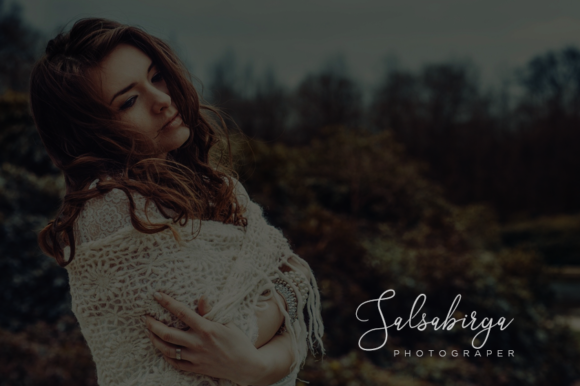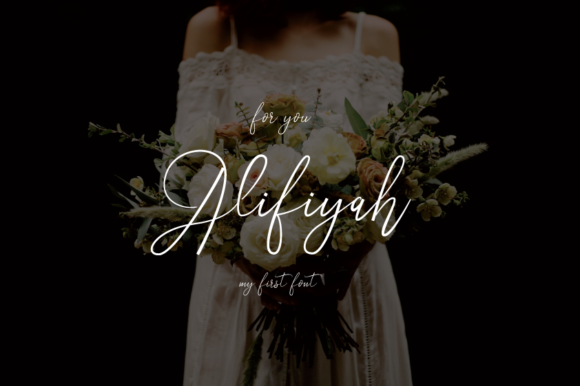
The Alifiyah Font: A Timeless Script for Creative Projects
I’ll never forget the time I was working on a branding project for a luxury boutique hotel. My client wanted a font that exuded elegance and sophistication, but I was struggling to find the perfect fit. That’s when I stumbled upon the Alifiyah font, and it instantly became the star of the show. In this article, I’ll share my experience with this beautiful script font, its features, and how to make the most of it in your design projects.
An Honest Review of Alifiyah Font
So, what makes Alifiyah font so special? Here are some things I love about it:
- ✨ Unique style: Alifiyah brings a fresh take on classic typography, making it perfect for designers looking for something new and exciting.
- ✅ Versatility: This font is incredibly versatile and works well for headlines, body text, and even large-scale designs.
- 💫 Elegant lines: The flowing lines and curves of Alifiyah give it a sophisticated and luxurious feel.
While Alifiyah is an amazing font, it’s not without its quirks. Here are a few things to keep in mind:
- 🤔 Limited use in small text: While Alifiyah is beautiful in large sizes, it can be a bit challenging to read in smaller text.
- ⚠️ Kerning issues: As with any script font, you may need to adjust the kerning to ensure the text looks balanced.
A Practical Guide to Using Alifiyah Font
- Explore the OpenType features, such as glyphs and stylistic alternates, to add more personality to your text.
The Story Behind Alifiyah Font
While the true story behind Alifiyah’s creation is unknown, it’s said that the font was inspired by traditional Arabic calligraphy and classic typography. The designer aimed to create a font that would bring a touch of elegance and sophistication to any design project. And, judging by its popularity, it’s clear that they’ve succeeded.
| Font Name | Alifiyah Font |
| Author | fiqiart |
| What is Alifiyah font best suited for? | Alifiyah font is best suited for headlines, titles, and blocks of text that require a touch of elegance and sophistication. |
| Is Alifiyah font suitable for body text? | While Alifiyah font is beautiful, it may not be the best choice for large blocks of body text. It’s better suited for headlines, titles, and short paragraphs. |